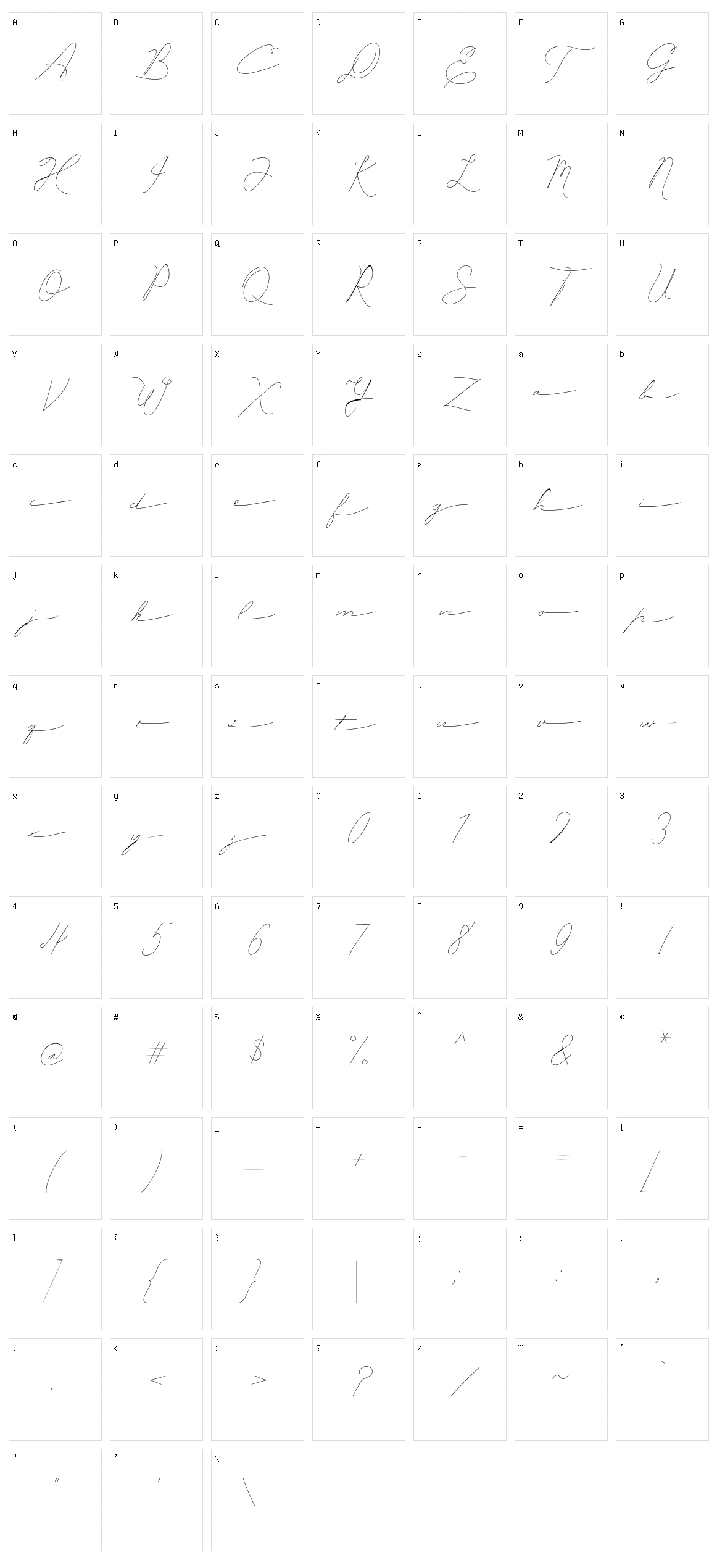
The free font Dear Rialy is carefully designed by Ali Hamidi, showcasing a thoughtful balance of creativity and usability and falls under the Script font style. When you download the ZIP file, it contains only 121.45 KB of font files, making it lightweight and quick to download. Please review the license details below to understand permitted usage and distribution rights. If license information is not available, we recommend using this font for personal projects only or contacting the author directly for commercial usage permissions.